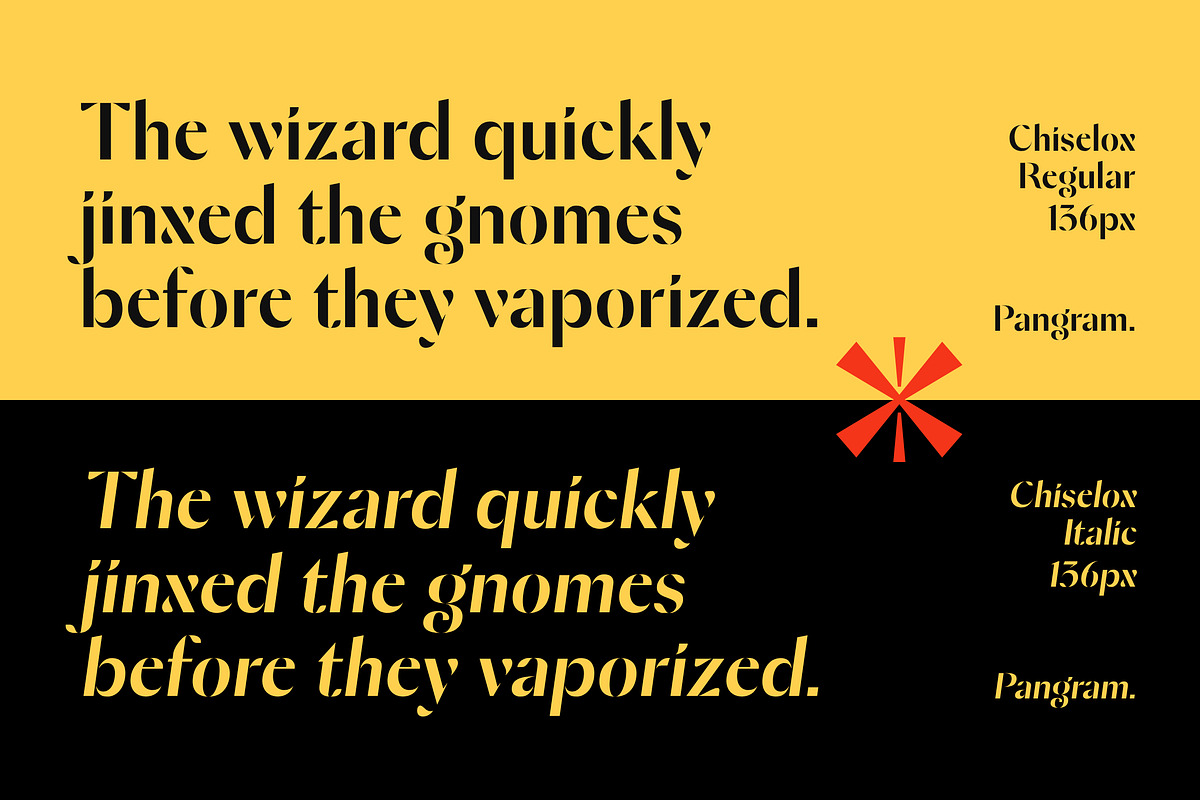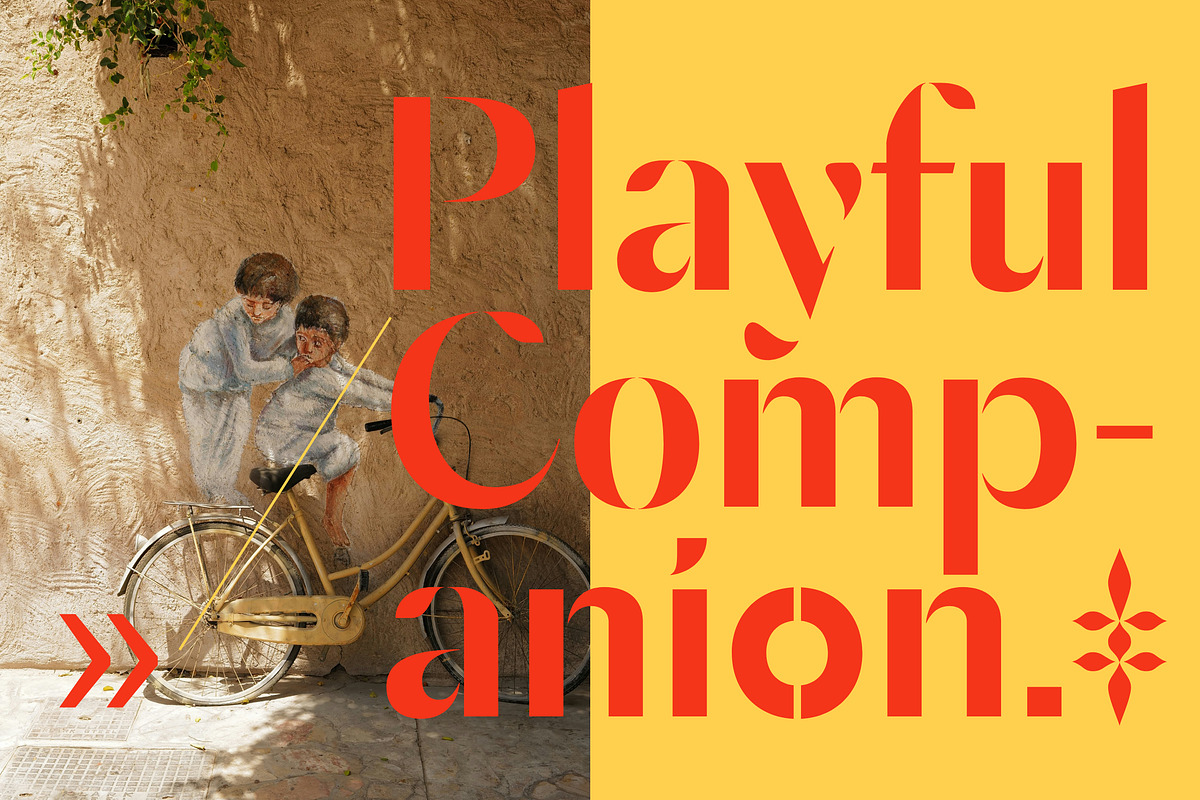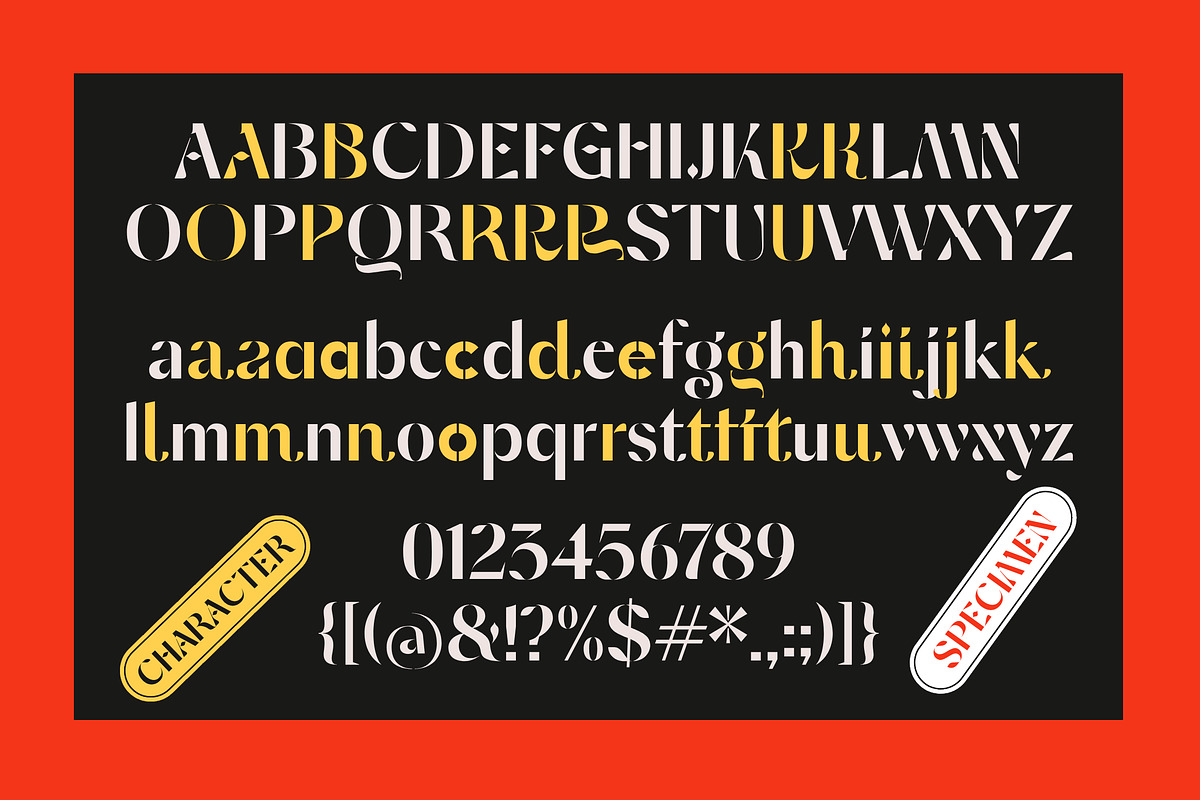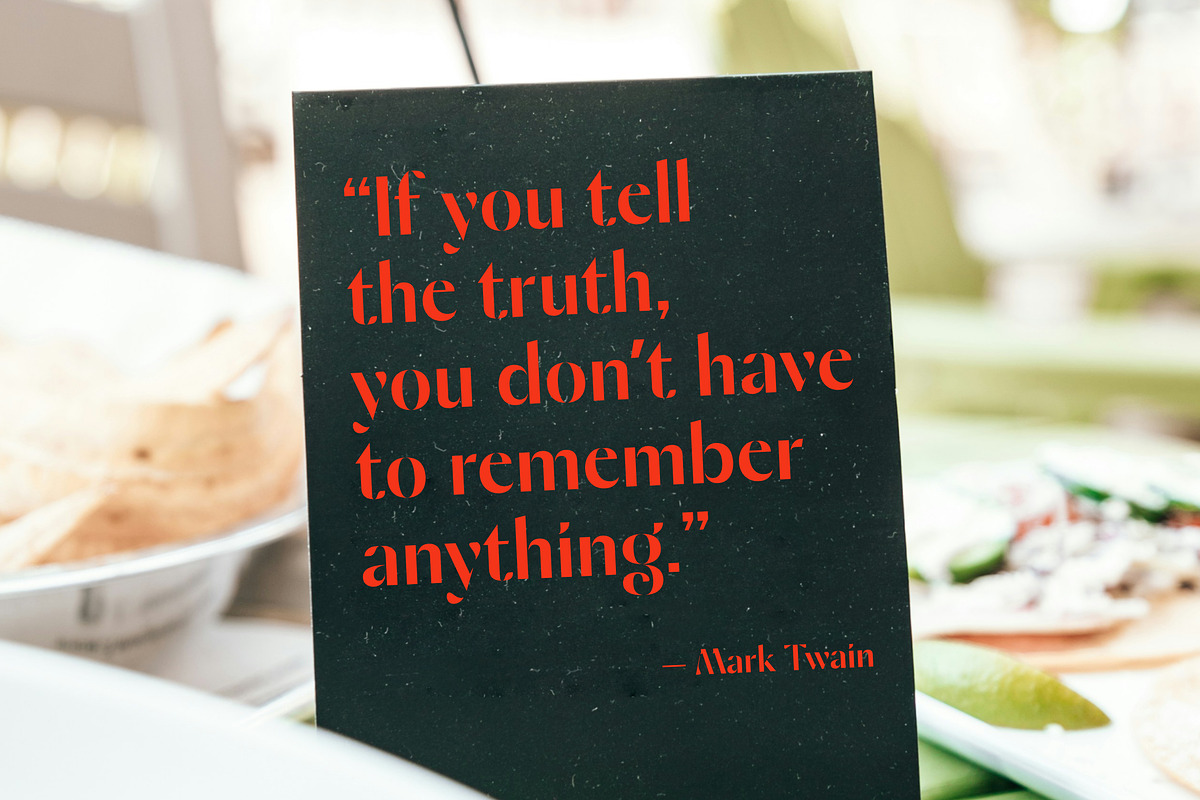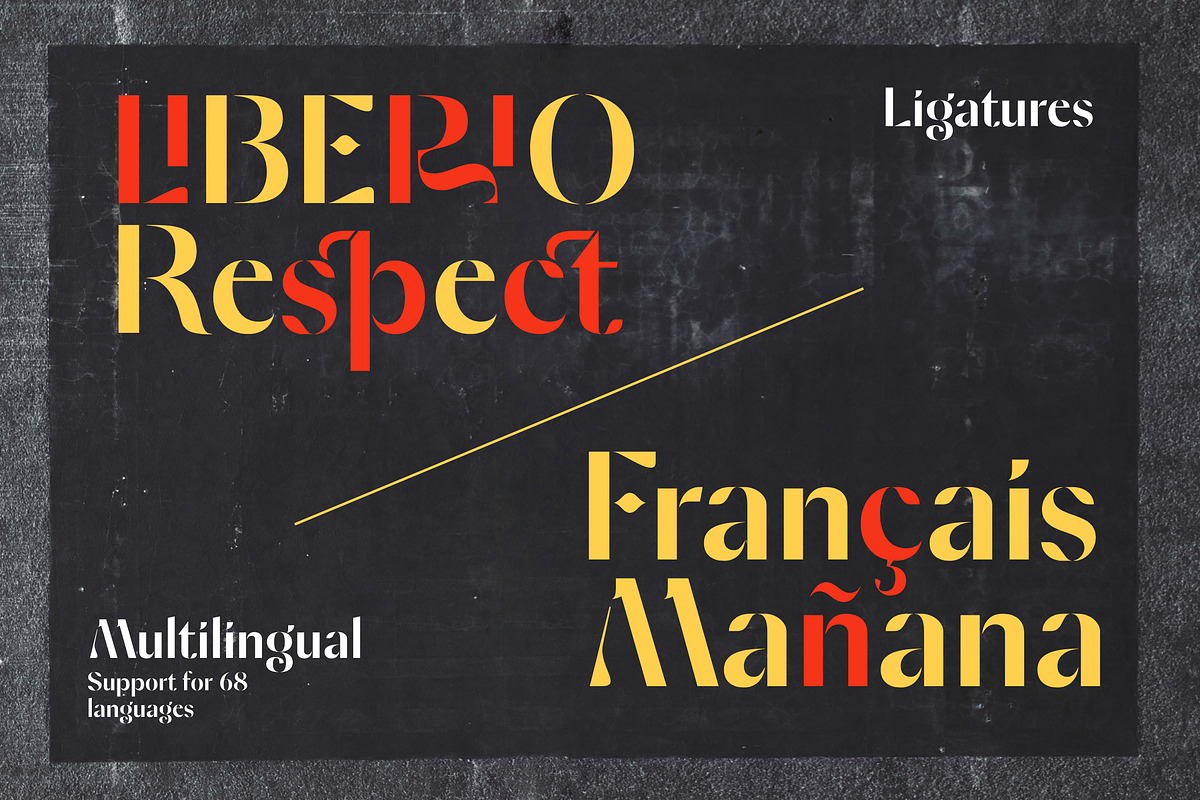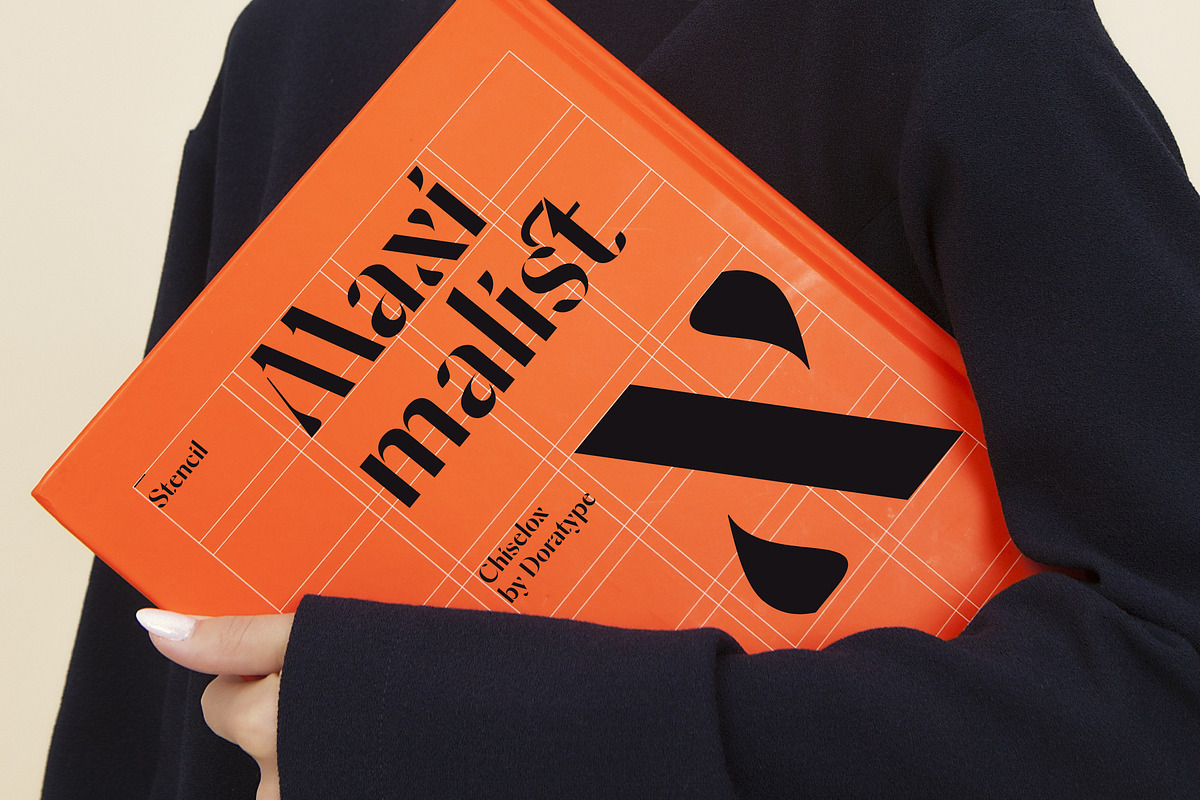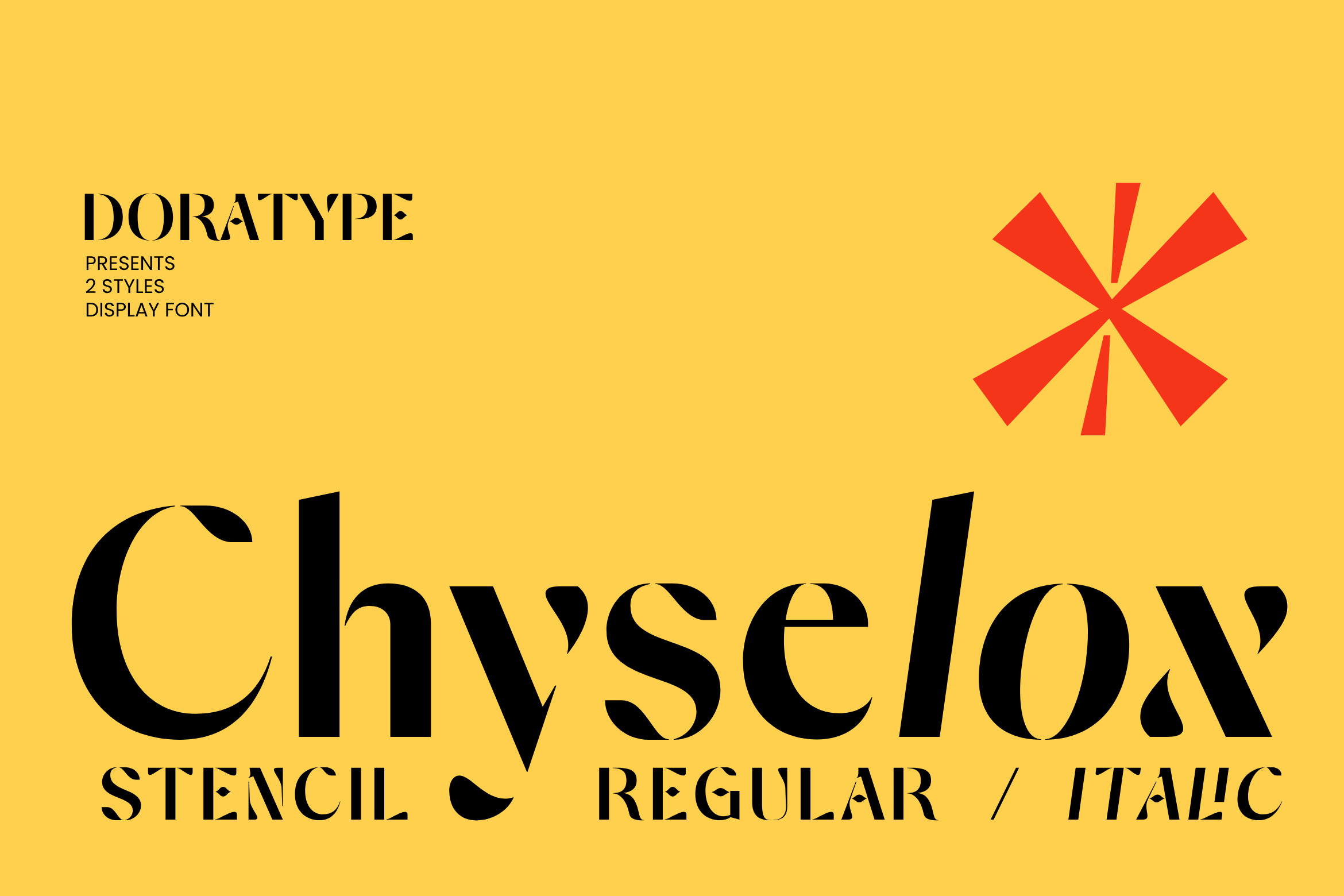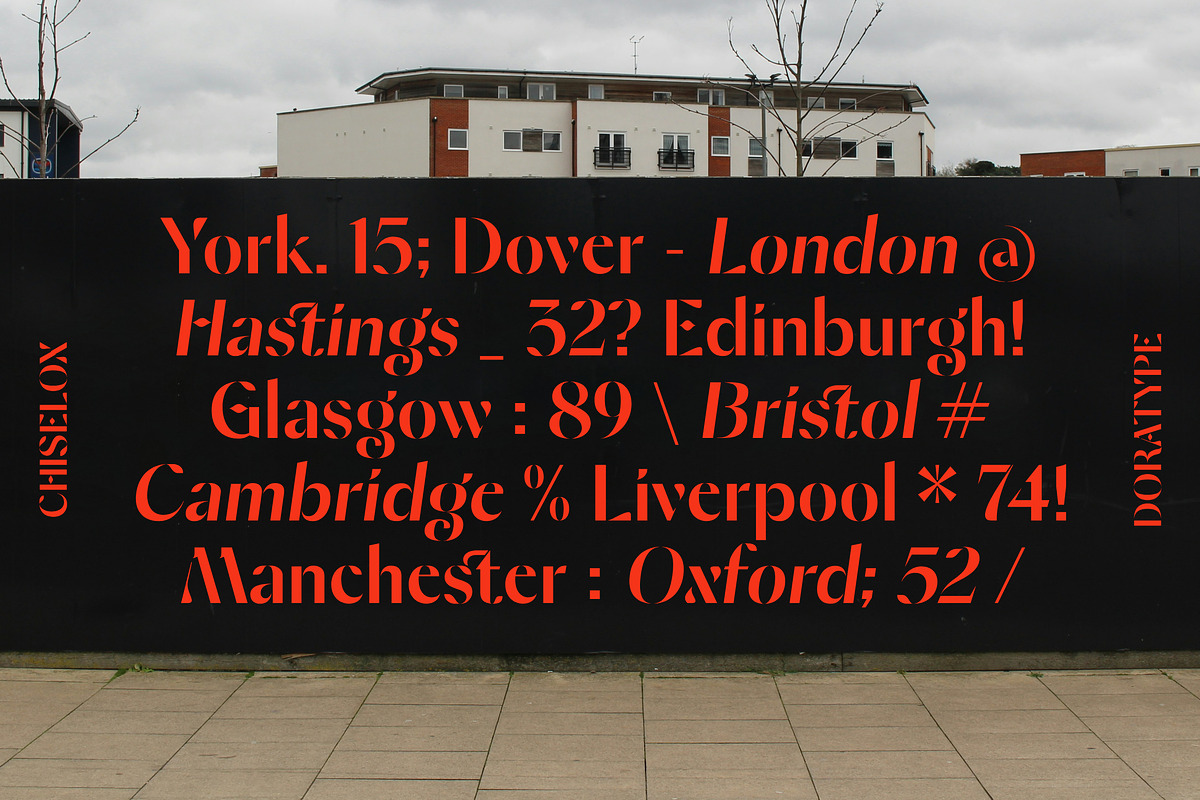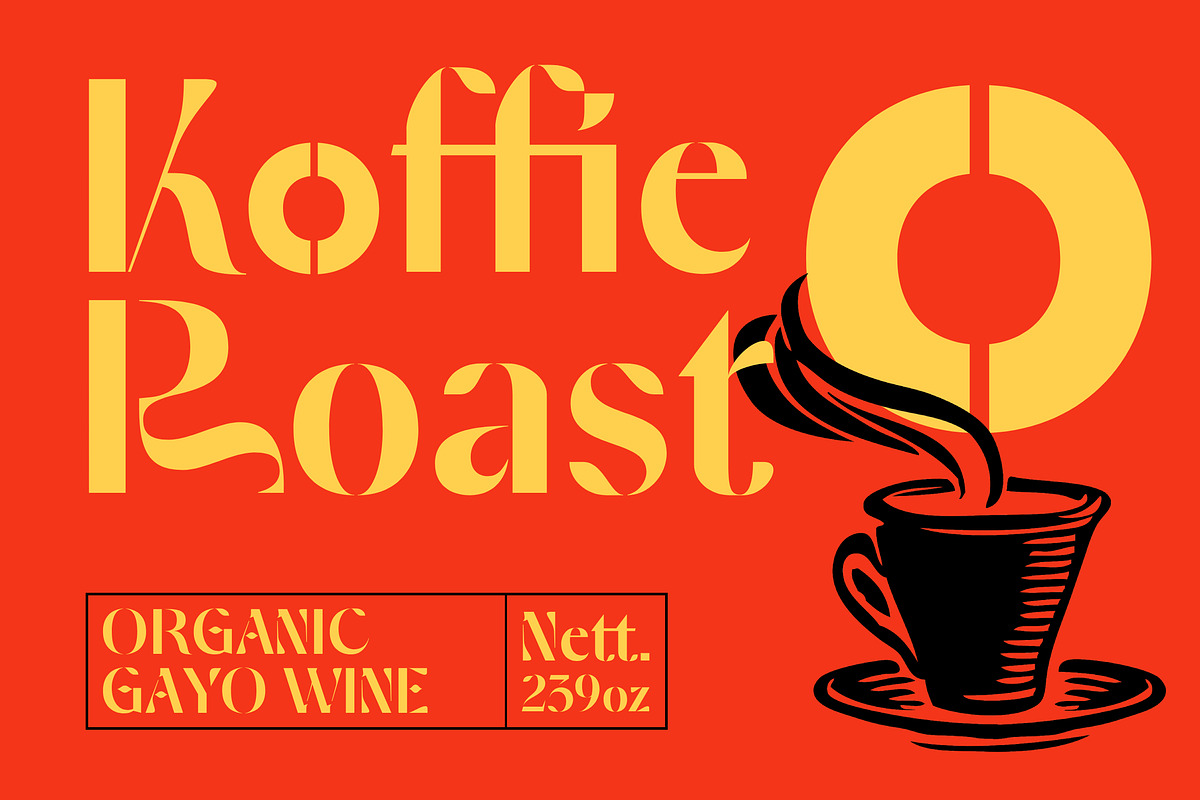
Chyselox - Stencil Font
Chyselox is a classic stancil sans-serif typeface with a friendly touch that feels very modern. Known for its subtle details making it versatile for a variety of uses across the brand.
- All Caps Font with different uppercase and lowercase
- Supported Languages
- Alternates and Ligatures